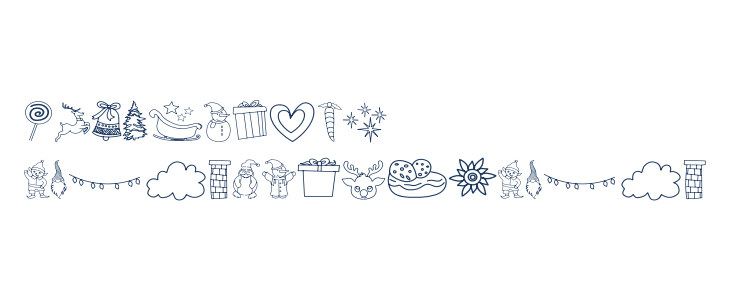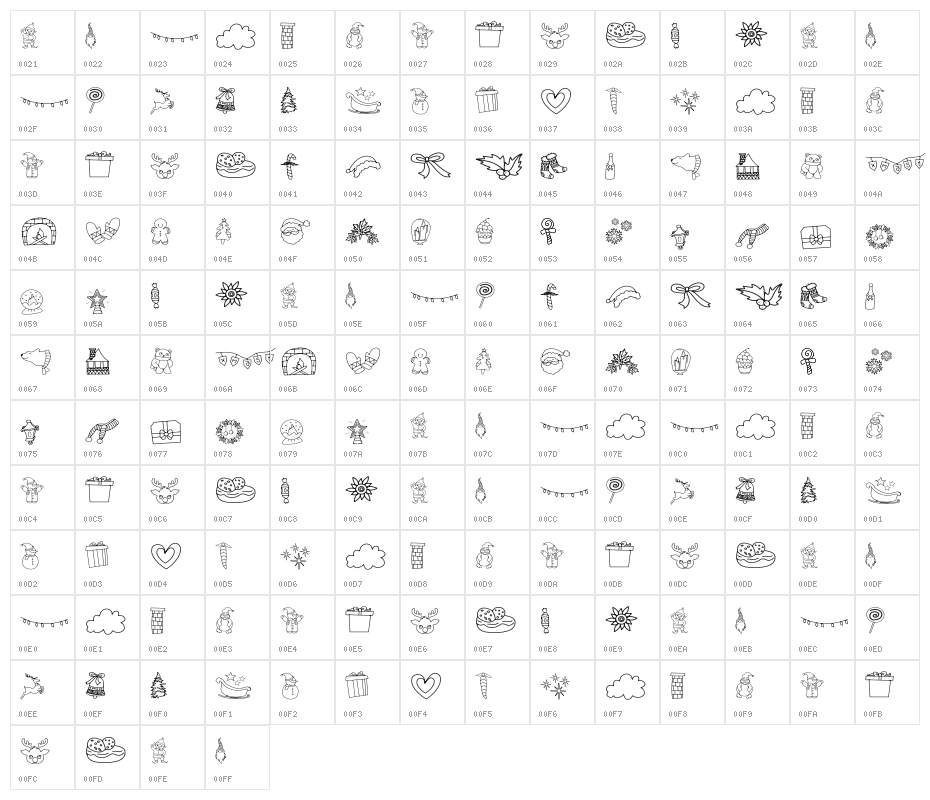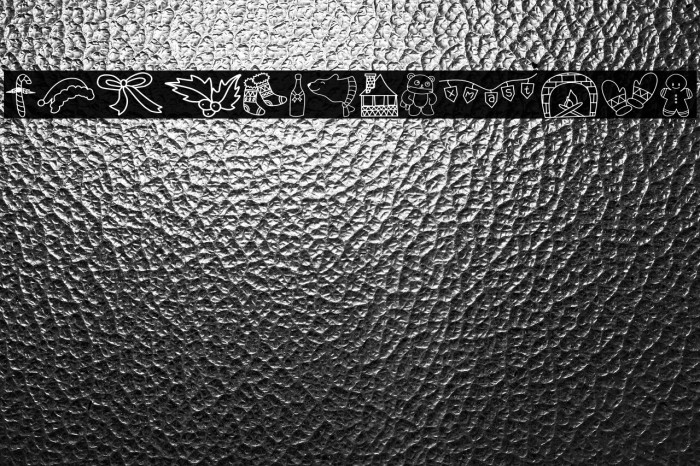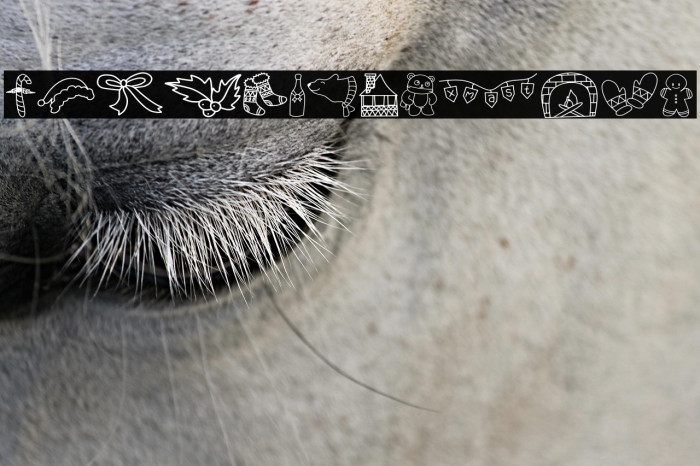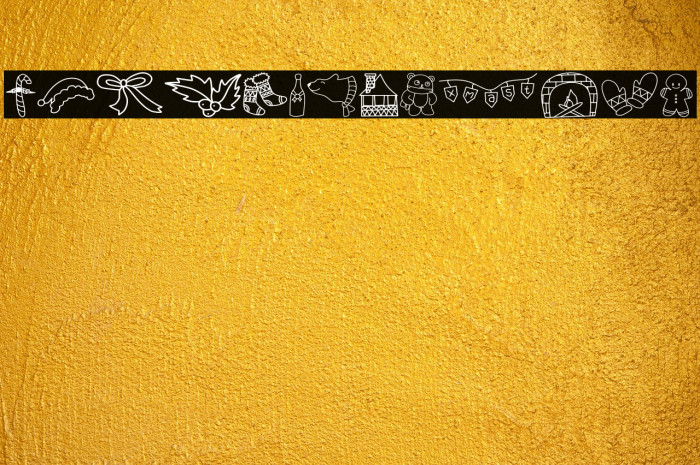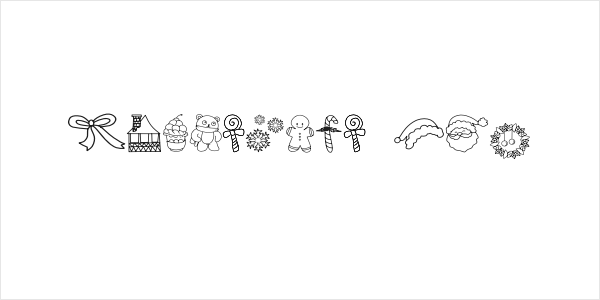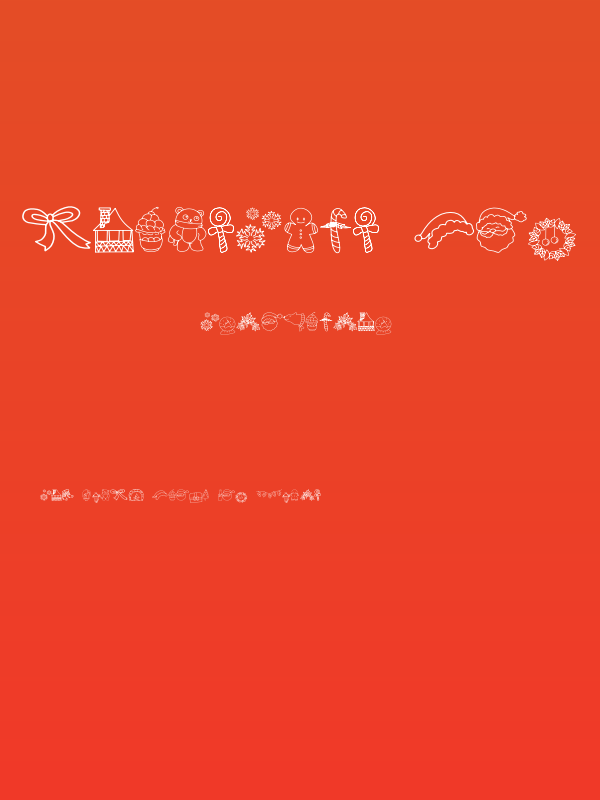
Christmas Box Font
Christmas Box Description
A playful, hand-drawn decorative set of Christmas-themed doodles and icons, including trees, gifts, Santa, snowflakes, and festive objects. The lines are clean and consistent, with a whimsical, childlike quality and no typographic letterforms present.
| Overall Style | Decorative, Whimsical, Festive |
| Use Case | Decorative elements, Illustrations, Themed graphics |
| Proposed Projects | Holiday cards, festive invitations, gift tags, seasonal posters, children's crafts, digital stickers. |